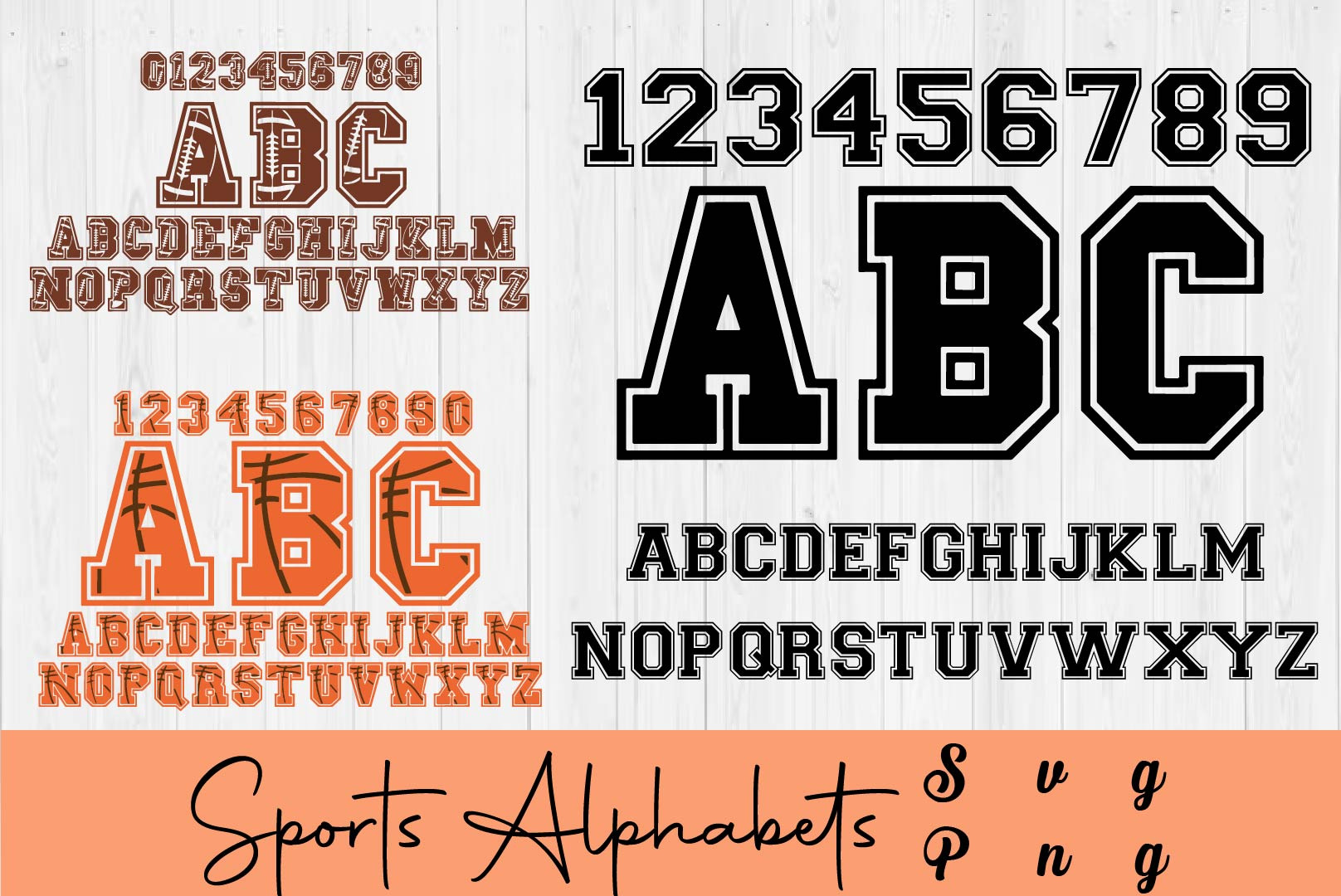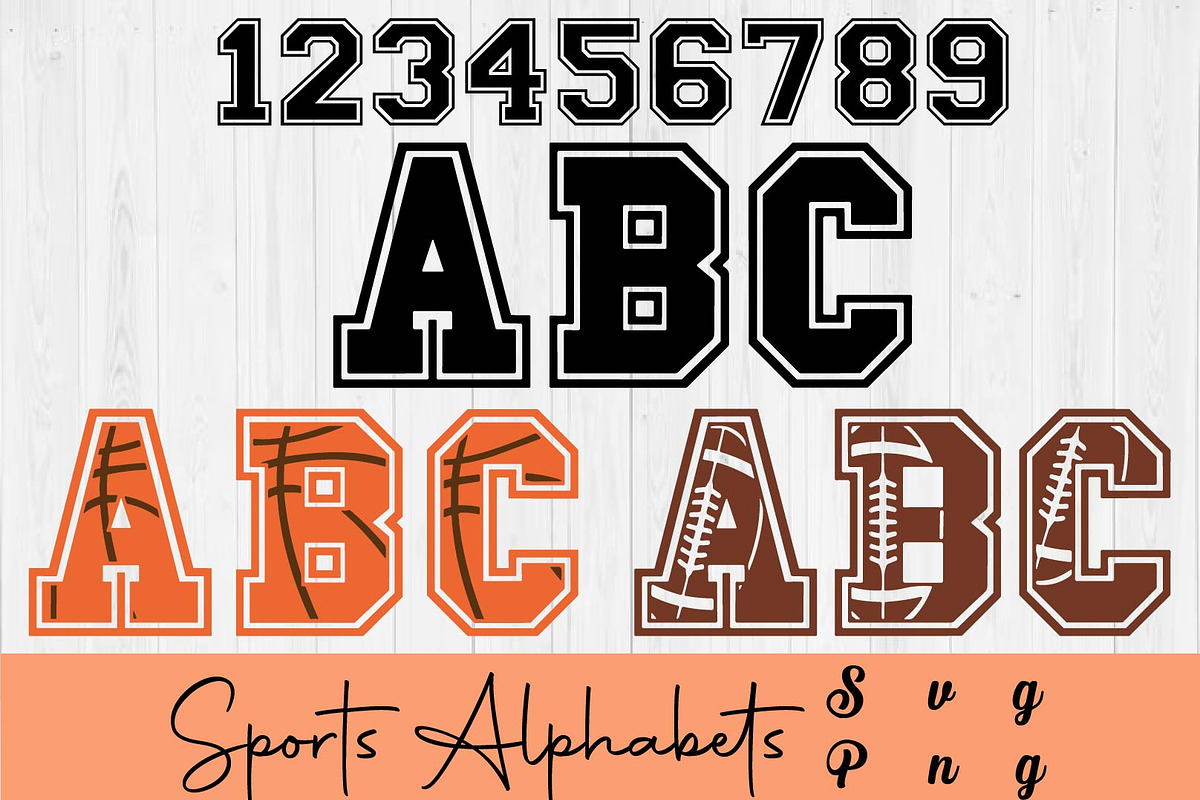
Sports Alphabet Font SVG Set
Sports Font SVG, Font for Cricut, Varsity Sporty Fonts Alphabet, Jersey Fonts, Football Fonts, Basketball Fonts, Download Digital File